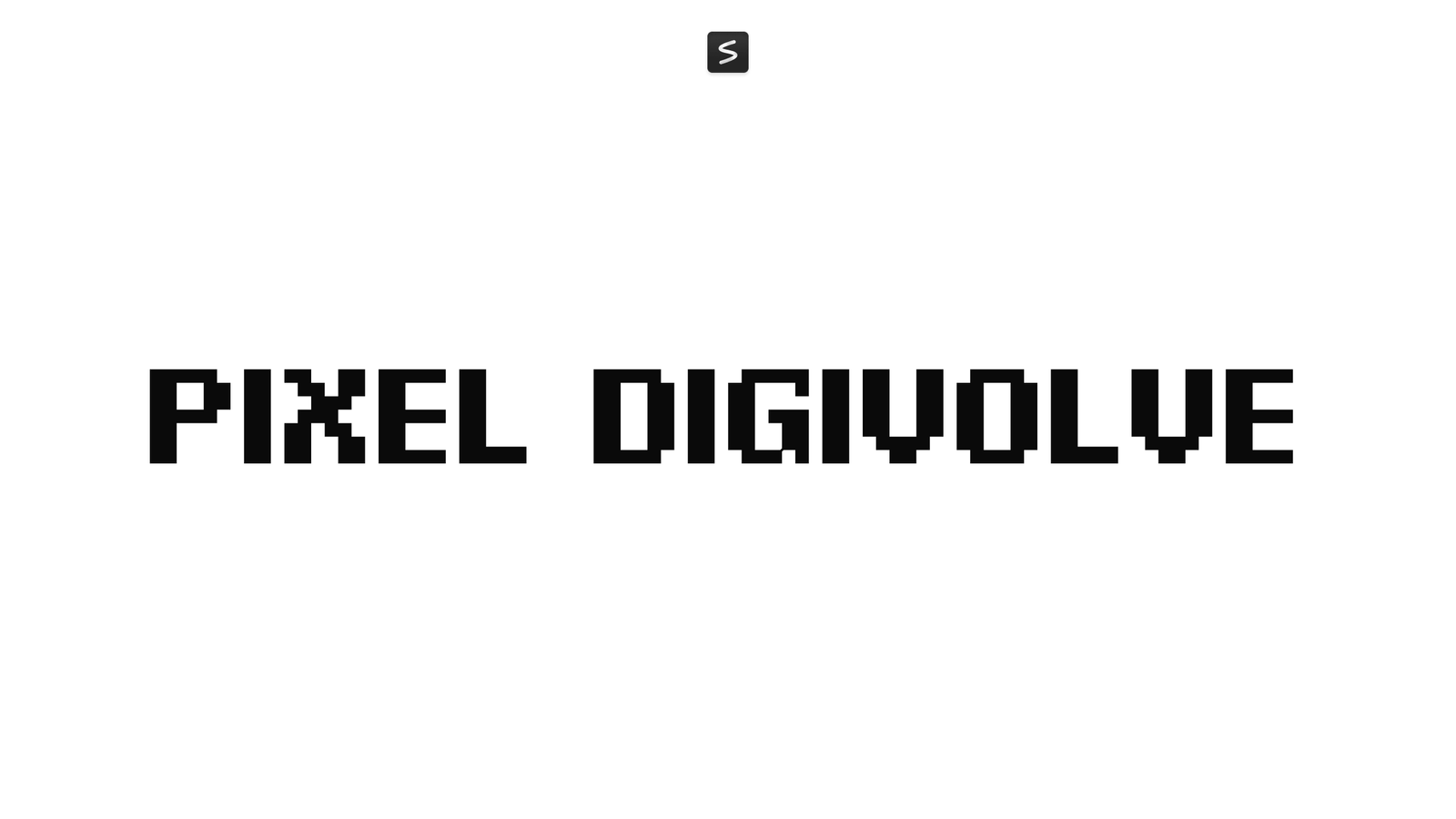
Pixel Digivolve is a bitmap font designed by Pixel Sagas that channels the digital energy of 1980s and 1990s arcade games and early computer graphics. Its blocky, geometric letterforms sit on a tight pixel grid, creating that distinctive retro-digital look without any smoothing or anti-aliasing. The font has a compact, sturdy feel that evokes the constrained screen space of old arcade cabinets and home computer displays.
The characters are uniform and mechanical, with clean perpendicular lines that read clearly at small sizes while maintaining visual interest at larger scales. This makes it well-suited for projects that need an authentic 8-bit or early digital aesthetic, whether you’re designing for nostalgia or deliberately invoking that era’s visual language.
Pixel Digivolve works well for game UI, indie game graphics, retro-themed posters, album artwork, zines, and any design that wants to reference or celebrate early digital culture. It’s a straightforward choice for anyone building pixel-art projects or seeking that unmistakable blocky, screen-native character.